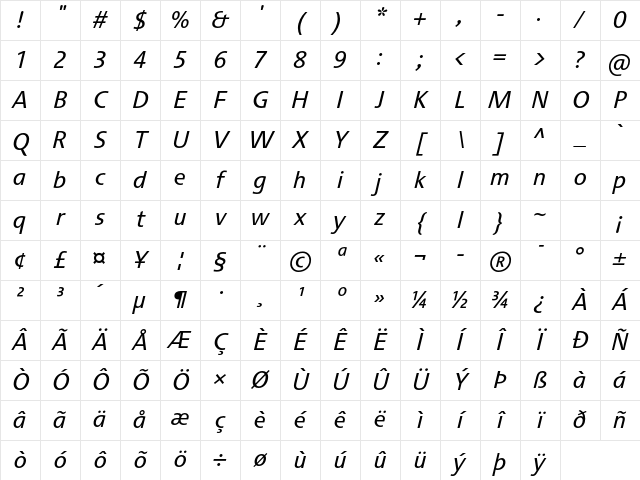
Cisalpin LT Std Italic
Designer: Felix Arnold
Design Context for Cisalpin LT Std
Cisalpin LT Std is a composed and adaptable typeface that performs quietly and consistently across a wide range of design contexts. The slanted form adds forward momentum and visual energy. Its slender proportions lend an understated elegance to any composition.